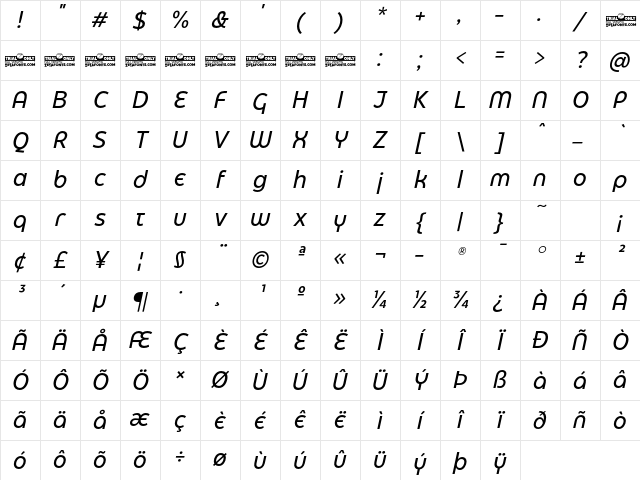
Complete Eastman Grotesque Alt Trial Medium Italic glyph index. Displaying only characters natively supported by Eastman Grotesque Alt Trial Medium Italic font.
Eastman Grotesque Alt Trial is a composed and adaptable typeface that performs quietly and consistently across a wide range of design contexts. The slanted form adds forward momentum and visual energy.
Pro Tip: Use Eastman Grotesque Alt Trial for emphasis, pull quotes, and subheadings where its slanted energy can add rhythm to the layout.